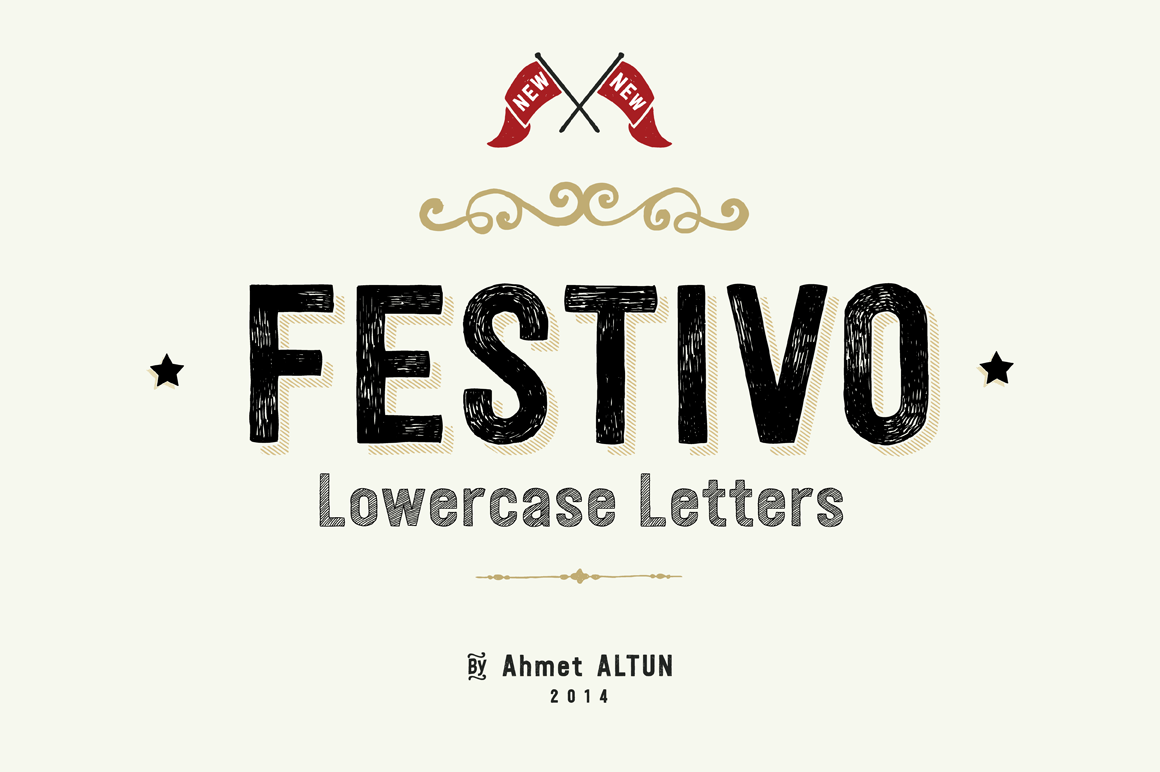
Festivo LC Font Family
With the lowercases of Festivo Letters Font Family, Festivo LC comes with new sketchs, new shadows and also ornaments. Festivo LC Font Family is a handmade layered font which includes several textures and shadows. Different font types can be created using various combinations of Festivo LC Fonts and colors.The kernings and the metrics of Festivo LC Fonts are not the same as Festivo Letters' kernings and metrics. It is advised not to use them together.The various possibilities of the Festivo Font Family allows you to create a lot of great works such as posters, magazines, printings, t-shirts etc. https://creativemarket.com/AhmetAltun/10353-Festivo-Letters